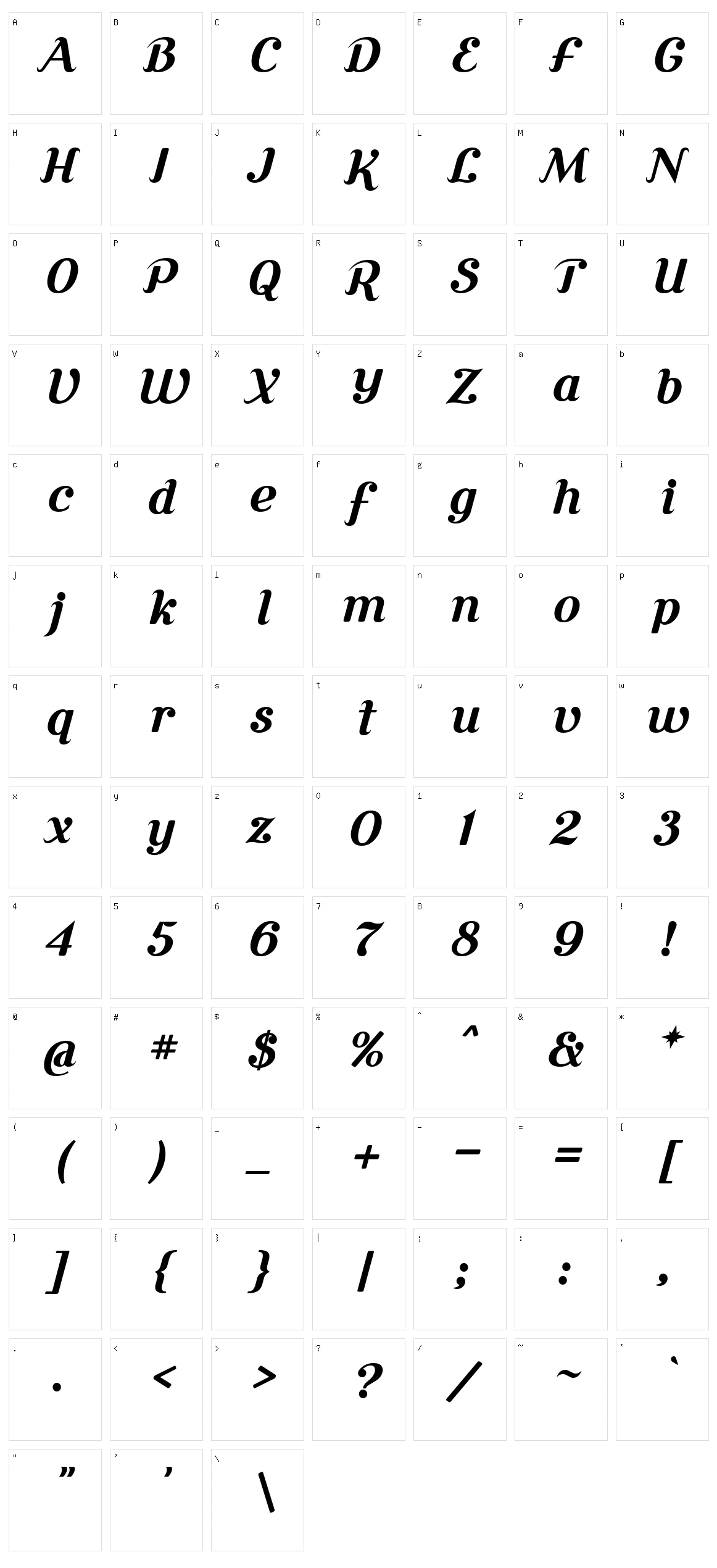
Basic Font Information
"Cursive" Font is a Unicode typeface family that supports all languages that
use the Latin script and its variants, and could be expanded to support other
scripts.
"Cursive" Font is created with FontForge.
- Changed left/right side bearings in Bold/BoldOblique versions.
- Fixed kerning for all.
- Added Bold version.
- Kerning fixed.
- Some small changes with shapes of some glyphs.
- all glyphs redesigned - I "cleaned" all glyphs, removed unnecessary points
and improved shapes of all glyphs.
- changed names of fonts: "CursiveSerif" - "Cursive Serif",
"CursiveSans" - "Cursive Sans"
- added Kerning by Classes Table (kern)
- fixed some bugs with bearings
- changed PS Private Dictionary
- added Grid Fitting Table (gasp) version 1
- fixed bugs with kerning
- Initial release
History
This is another of my old fonts used to inscriptions on stone.
I created the CursiveSerif font about 14-15 years ago (like other fonts - when
I started doing the inscriptions on stone professionally).
Initially the font was only serif. I decided to create two versions
- Sans and Serif.
CursiveSerif is the first part of two fonts family. The second part is
CursiveSans.